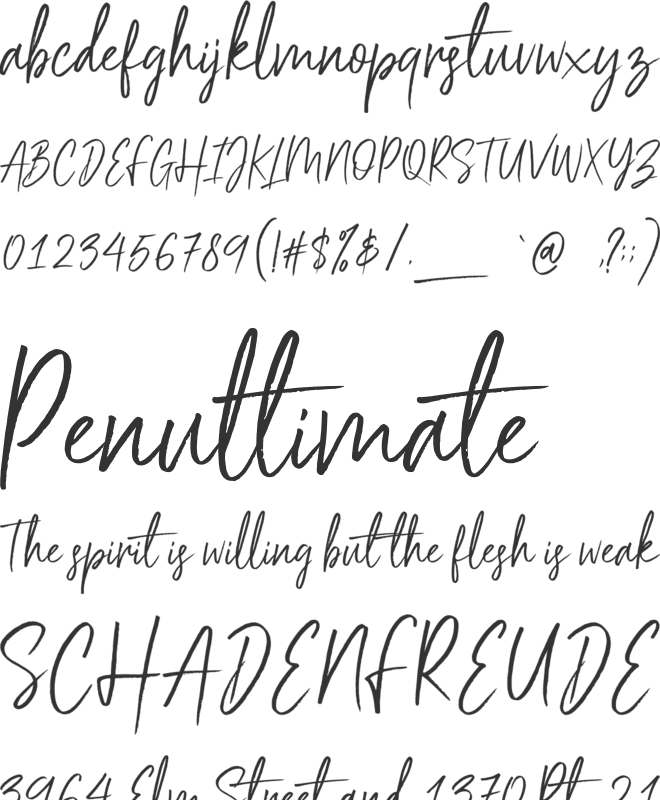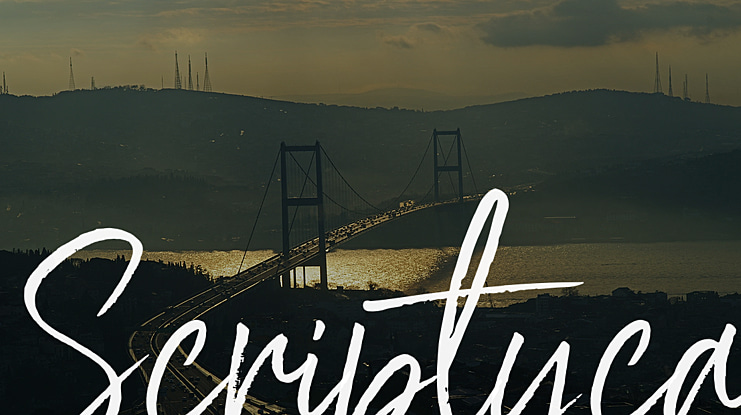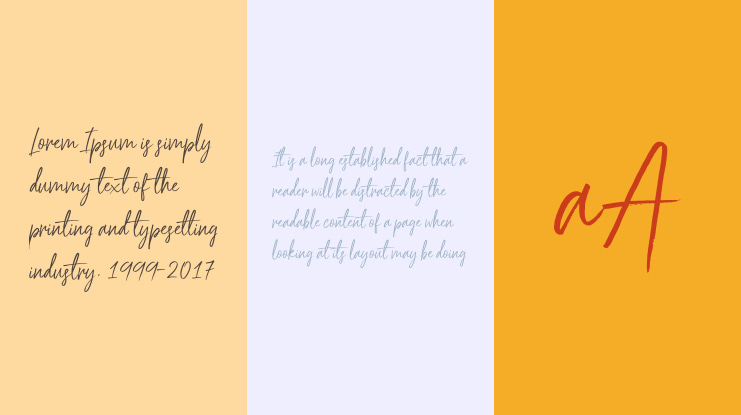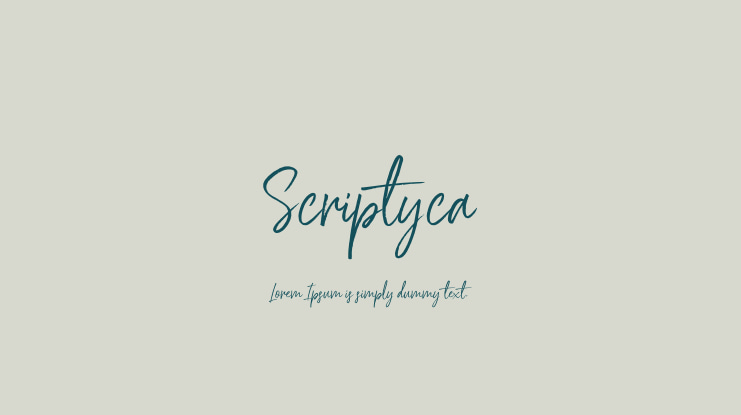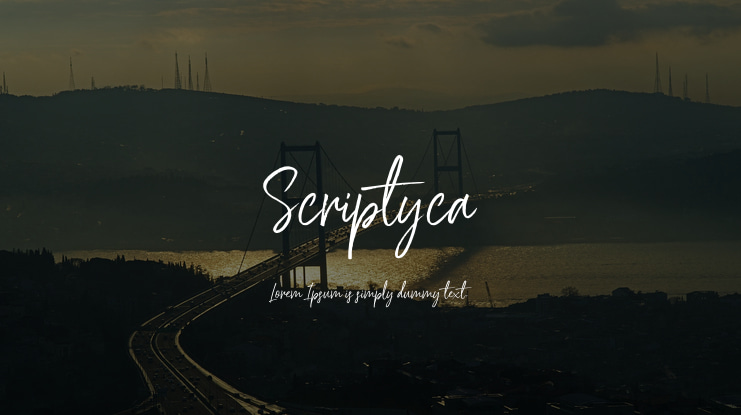
Scriptyca Font
This is my first handwritten font. That's simple, bouncy and cool. Scriptyca can be incorporated into many designs including quotes text, wedding invitations, posters and you can create custom cards to give to your friends and family.